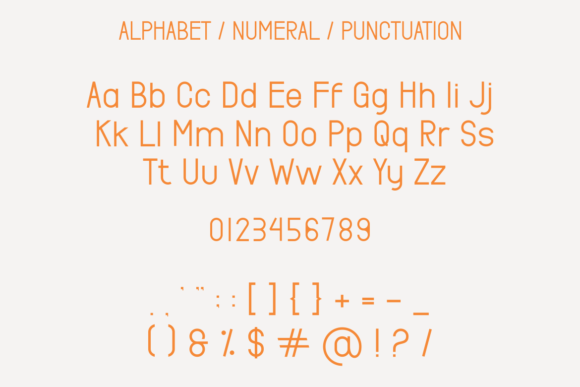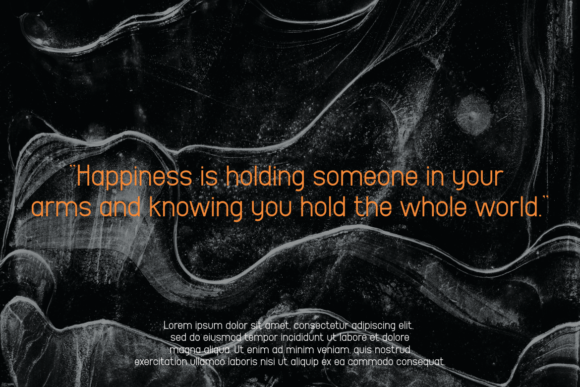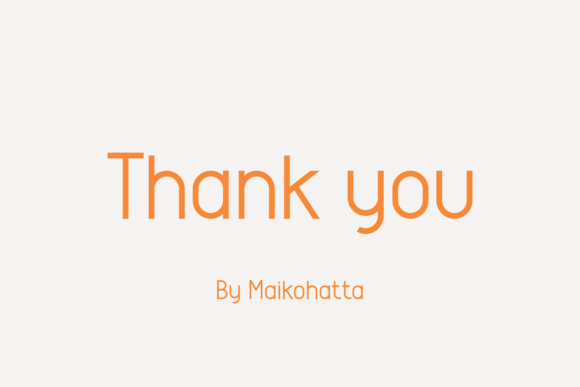
Introduction to Gibral Font
Have you ever been working on a creative project, and suddenly, the perfect font pops into your head? It’s like a spark of inspiration that sets your imagination ablaze. For designers, finding the right font can be the difference between a good design and a great one. That’s why we’re excited to introduce you to the Gibral Font, a bold and authentic sans serif font that’s sure to elevate your work.
With its clean lines and modern feel, Gibral Font is the perfect design resource for any creative project. Whether you’re working on a logo, a T-shirt design, or even an esports brand, this font is guaranteed to make your work stand out. And the best part? It’s available for free download, so you can start using it right away.
What sets Gibral Font apart is its versatility and high quality. It’s perfect for use on a transparent background, making it ideal for digital designs. Its bold and authentic feel is sure to add a touch of sophistication to any design project, making it a valuable asset for any designer.
Key Features of Gibral Font
- Unique and elegant design, perfect for creative projects requiring a touch of sophistication.
- High-quality font with transparent background, ideal for use on images or graphics with complex backgrounds.
- Comes in multiple sizes and resolutions, ensuring versatility for use in different design contexts.
- Designed to be a valuable design resource for artists, graphic designers, and digital creators.
- Supports a wide range of languages, making it a great option for multilingual creative projects.
Honest Review: Gibral Font
I recently stumbled upon the Gibral Font and was excited to give it a try. As a designer, I’m always on the lookout for high-quality design resources that can elevate my creative projects. The Gibral Font didn’t disappoint.
- High-quality design: The Gibral Font has a crisp, clean look that’s perfect for modern designs.
- Transparent background: This feature is a must-have for designers who want to customize their designs without any distractions.
- Wide character set: The font includes a wide range of characters, including international symbols and punctuation marks.
While the Gibral Font is a great addition to any designer’s toolkit, I did notice a few limitations:
- Limited font styles: The font only comes in a few styles, which might limit its versatility for more complex designs.
- Not ideal for small text: The font can become difficult to read when used for small text sizes.
Overall, I’m impressed with the Gibral Font and would definitely recommend it to fellow designers. While it has some limitations, its high-quality design and transparent background make it a valuable resource for creative projects.
Tips for Getting the Most Out of Gibral Font
To get the most out of Gibral Font, use it in combination with other design elements, such as images and graphics, to create a visually appealing design. You can also experiment with different font sizes and colors to add emphasis and create contrast.
Gibral Font is commonly used in various design projects, such as: brochures, business cards, posters, and social media graphics. Its high quality and transparent background make it an ideal choice for designers looking to create professional-looking designs.
Q: Is Gibral Font a high-quality font?
Yes, Gibral Font is a high-quality font. It’s designed to be clear and legible, making it suitable for a wide range of design projects. The font has a modern and clean design, which makes it a great addition to any creative project.